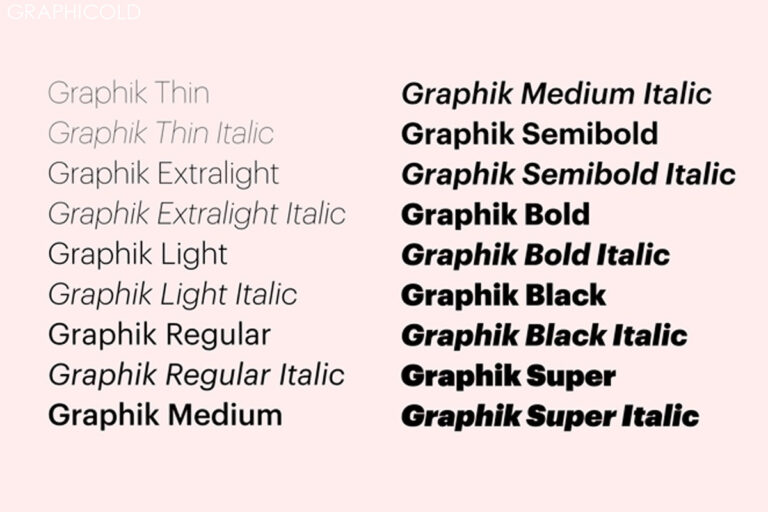
The Importance of Graphic Fonts in Design
When it comes to design, one element that often gets overlooked but plays a significant role is graphic fonts. Fonts are more than just a style of writing; they are a form of communication that can convey emotions, enhance the message, and create a visual impact.
Graphic fonts refer to the various styles and designs of fonts used in graphic design. They are an essential tool for designers to create visually appealing and effective designs. Here are a few reasons why graphic fonts are crucial in design:
1. Visual Appeal: Graphic fonts can significantly enhance the visual appeal of any design. They come in various styles, shapes, and sizes, giving designers the flexibility to choose fonts that align with the overall design concept. Whether it’s a bold and powerful font for a poster or a delicate and elegant font for a wedding invitation, graphic fonts can instantly elevate the aesthetics of a design.
2. Branding and Identity: Fonts play a crucial role in establishing a brand’s identity. Companies often create and use custom fonts that represent their brand personality and values. The right font choice can help reinforce the brand’s message and create a consistent visual identity across various marketing materials.
3. Emotion and Tone: Different fonts convey different emotions and tones. For example, a playful and whimsical font may be suitable for a children’s book, while a clean and minimalist font might be more appropriate for a corporate website. Graphic fonts can evoke emotions, set the tone, and enhance the message of a design.
4. Readability and Accessibility: In addition to the visual appeal, fonts need to be readable and accessible. Graphic designers must consider the legibility of fonts, especially when designing for digital platforms. Choosing fonts with clear and readable characters is essential to ensure that the message is effectively communicated to the audience.
5. Differentiation: With thousands of fonts available, graphic designers have endless options to choose from. This allows them to differentiate their designs and stand out from the competition. By using unique and distinctive graphic fonts, designers can create memorable designs that leave a lasting impression on the viewers.
In conclusion, graphic fonts are a vital element in design. They have the power to enhance the visual appeal, convey emotions and tone, establish a brand’s identity, and differentiate designs. Graphic designers must carefully consider font choices to create effective and visually appealing designs that effectively communicate the intended message to the audience.